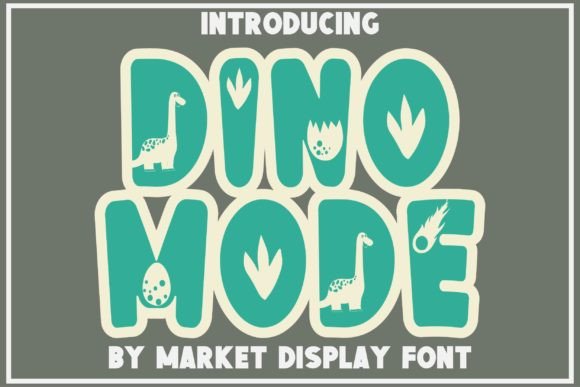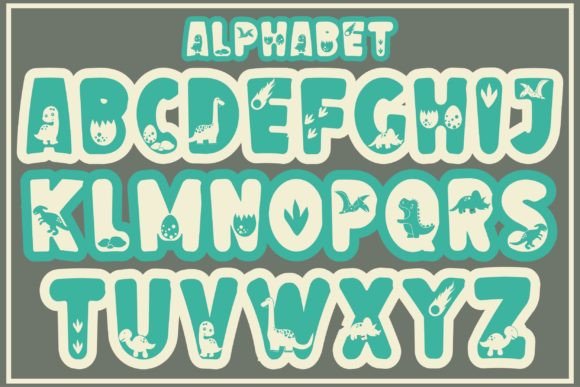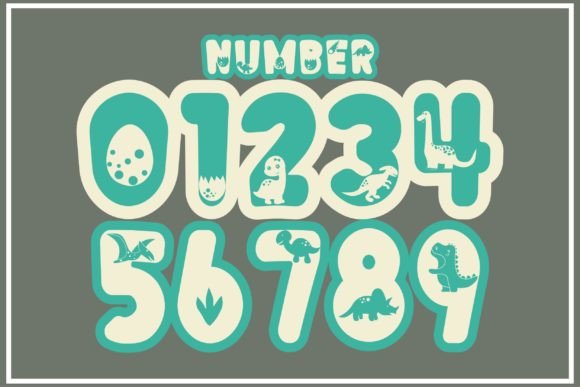
Dino Mode Font: A Playful Decorative Font for Kids & Craft Projects!
About the Dino Mode Font
Unleash your creativity with Dino Mode Font, a versatile font perfect for a wide range of applications. Dino Mode is a captivating decorative font with a dinosaur motive. Create outstanding typography designs with this dinosaur-themed font! It is perfect for kids’ t-shirt designs, paper crafts, web graphics, and more.
Dino Mode’s playful, cartoonish style makes it ideal for children’s projects, branding for playful businesses (toy stores, children’s entertainment), and packaging for kid-friendly products. It also works well in short headlines or taglines within a larger design, adding a touch of fun. However, its decorative nature makes it unsuitable for body text or UI elements where readability is paramount. Avoid using it in long paragraphs or for applications requiring high levels of professionalism.
Pairing Dino Mode effectively requires a contrasting font to balance its whimsical energy. A clean sans-serif like Open Sans or a simple, geometric typeface would provide a strong counterpoint, ensuring visual clarity. For a slightly more sophisticated feel, consider pairing it with a classic serif like Garamond or a slightly more playful script font for added whimsy.
The overall personality of Dino Mode is undeniably fun and energetic, best suited for brands targeting a younger demographic or those wishing to project a lighthearted, approachable image. Consider its limitations regarding length and readability when planning your design.